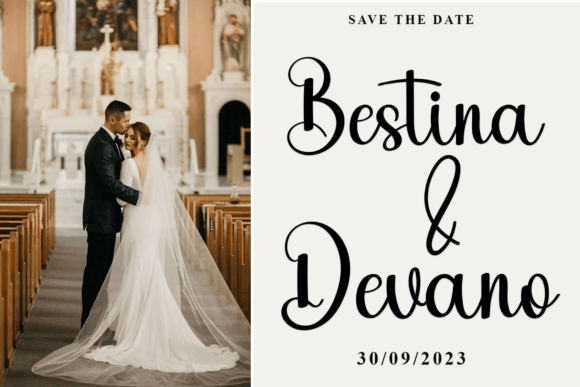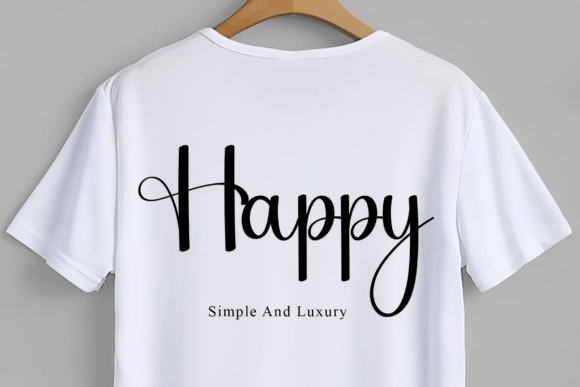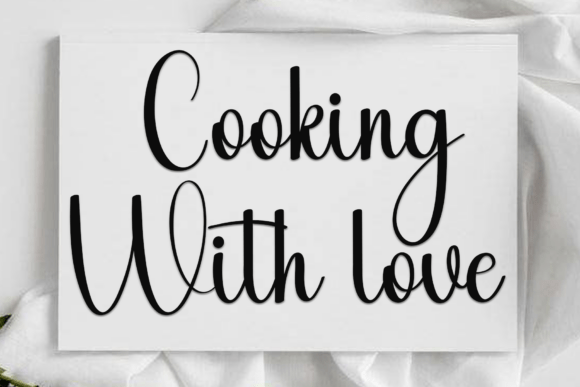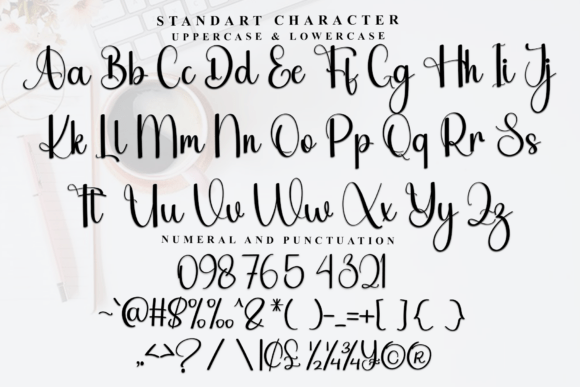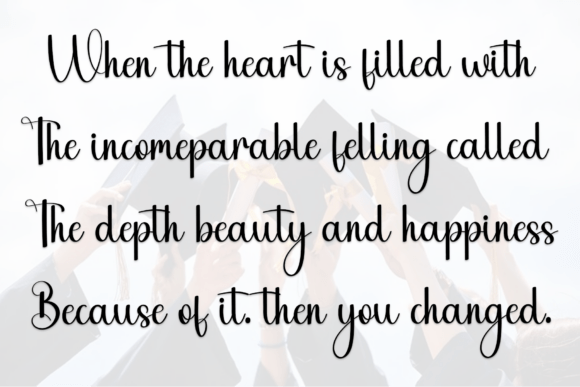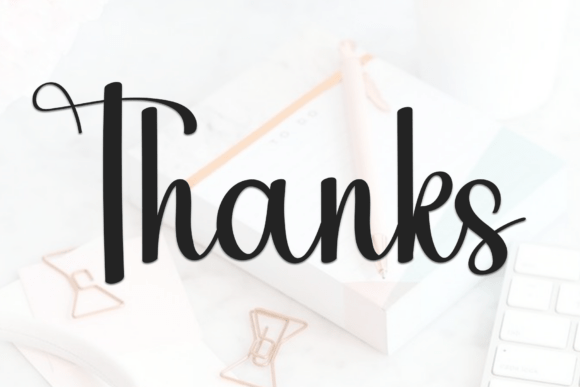
Introduction to Shopia Font
Imagine you’re sipping hot cocoa on a snowy winter evening, surrounded by twinkling lights and festive decorations. You’re working on a holiday project, and you need the perfect font to capture the magic of the season. That’s where the Shopia Font comes in – a merry and whimsical typeface that will transport your designs to a world of wonder and enchantment.
As a designer, you know how important it is to have the right tools to bring your creative vision to life. The Shopia Font is a valuable addition to your design resource arsenal, offering a high-quality, free download that will add a touch of sophistication and cheer to your projects. Whether you’re creating greeting cards, gift tags, or holiday-themed designs, this font is sure to shine with its transparent background and creative flair.
Key Features of Shopia Font
- High-quality design resource suitable for creative projects with a transparent background, allowing for seamless integration with various backgrounds.
- Comes in a single font size with a high resolution, making it perfect for both digital and print media.
- Unique characteristics include its modern and sleek design, making it ideal for use in branding, advertising, and other creative projects.
- Designed to be highly legible, even at small font sizes, ensuring that your message is conveyed clearly and effectively.
- Perfect for designers and artists looking for a high-quality design resource to elevate their creative project.
Honest Review: Shopia Font
I recently had the chance to work with the Shopia Font for a creative project, and I must say, it’s been a game-changer. This free download has truly elevated my designs.
- Wide range of applications, from branding to editorial design
- Easy to customize and style to fit any creative project
- Some users may find the font too ornate for certain designs
- Lack of support for certain special characters
Overall, I’m thoroughly impressed with the Shopia Font. It’s a fantastic design resource that’s perfect for any creative project. The transparent background option and high quality files make it a breeze to work with, and the wide range of applications ensure it’ll be a staple in your design arsenal for a long time.
Shopia Font is ideal for creative projects such as logos, brochures, and business cards. Its high-quality design and transparent background make it a versatile design resource for any project.
Great Vibes Font is similar to Shopia Font in terms of its cursive style, but it has a more polished and refined feel. While Shopia Font is great for casual designs, Great Vibes Font is better suited for high-end projects that require a premium look.